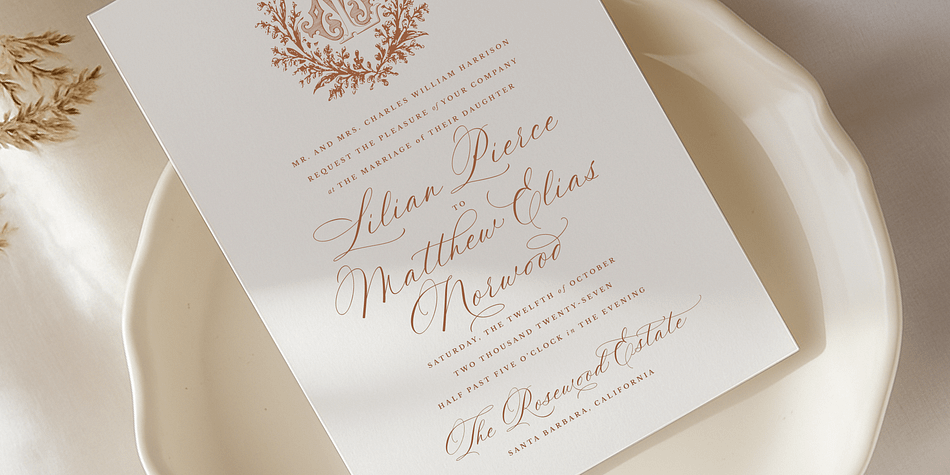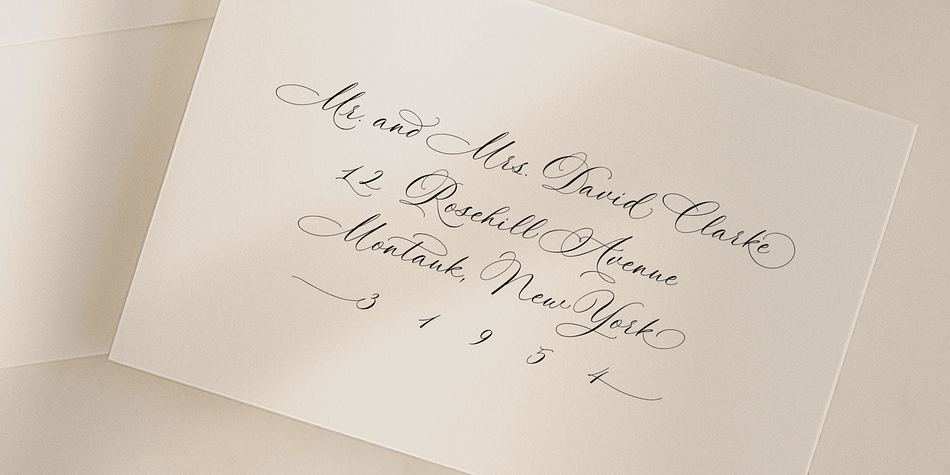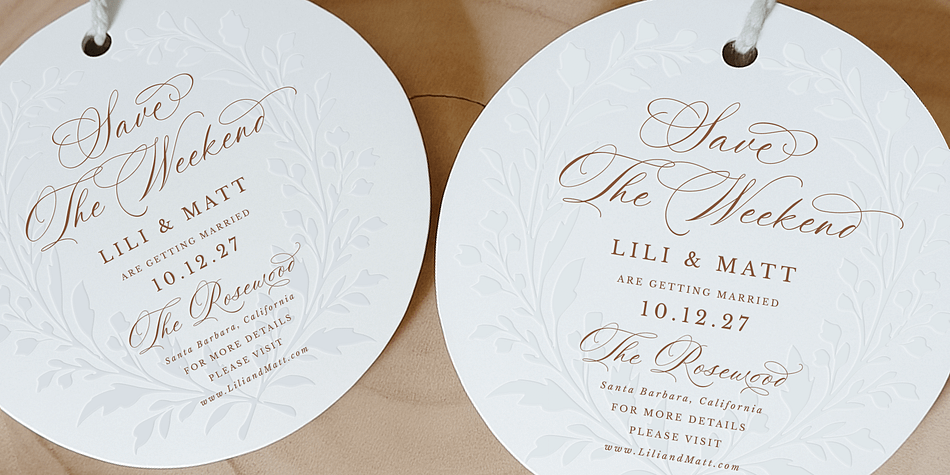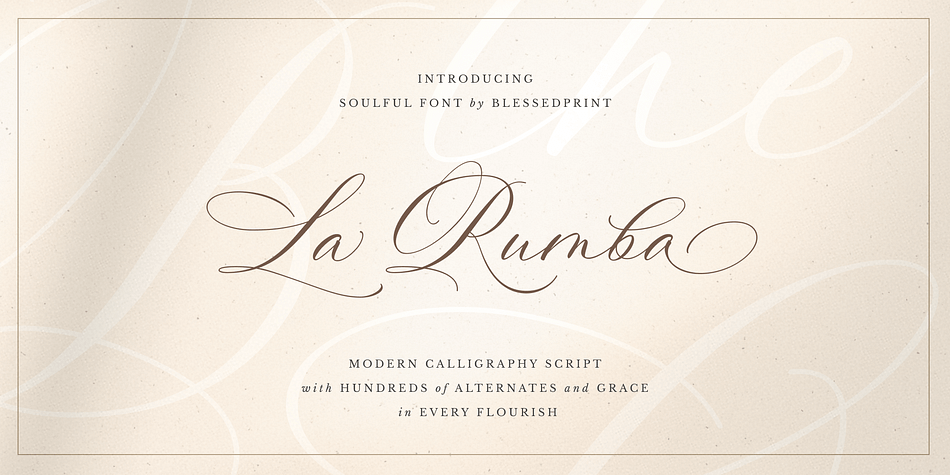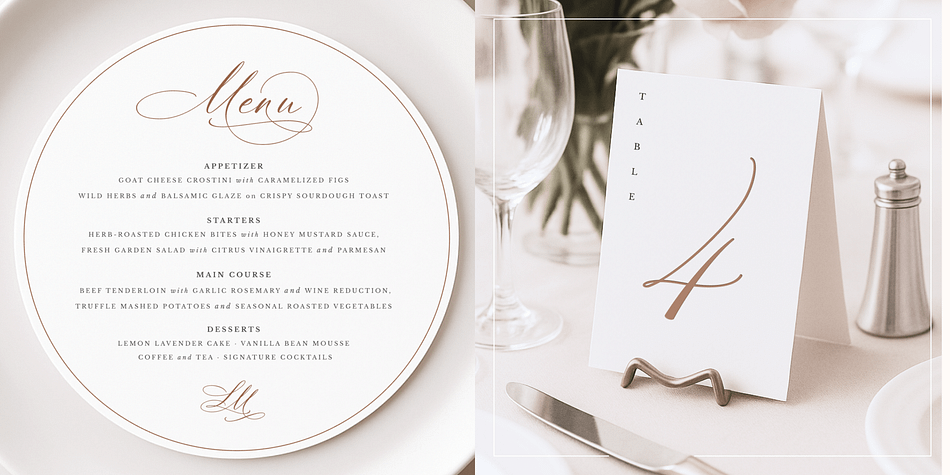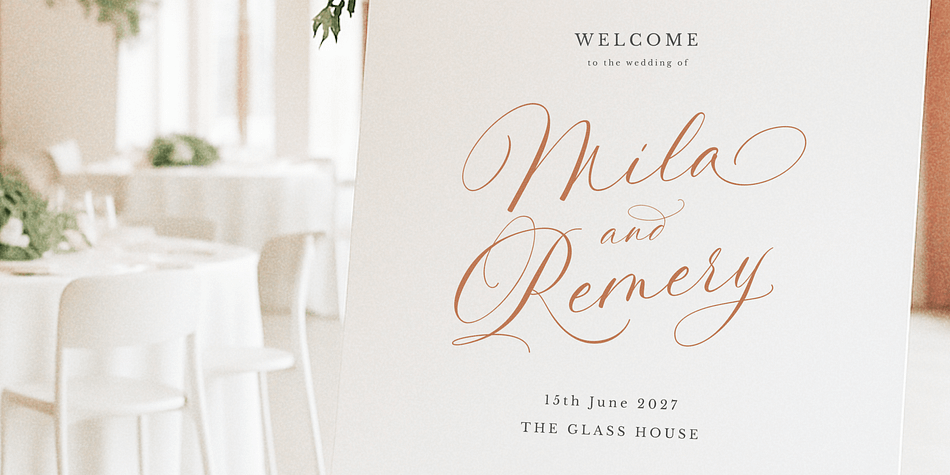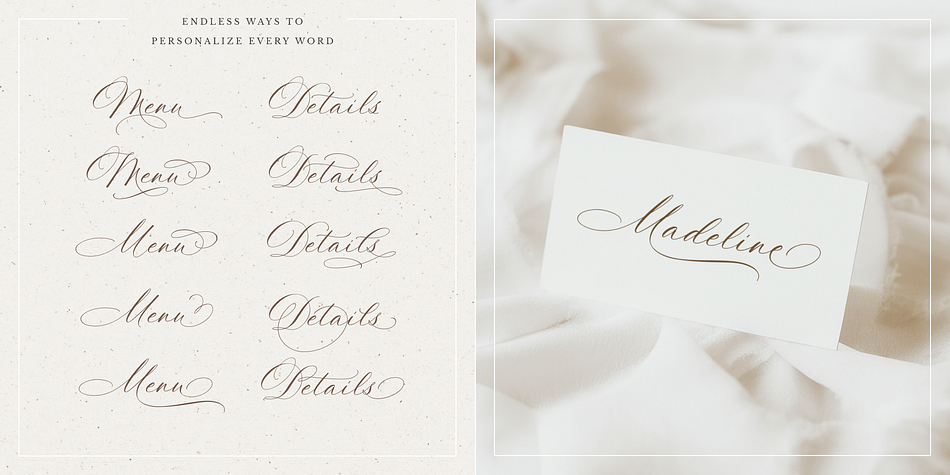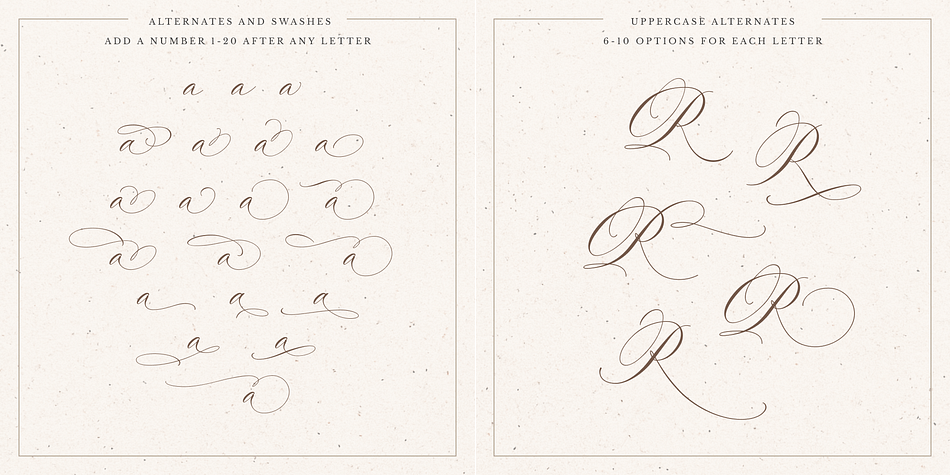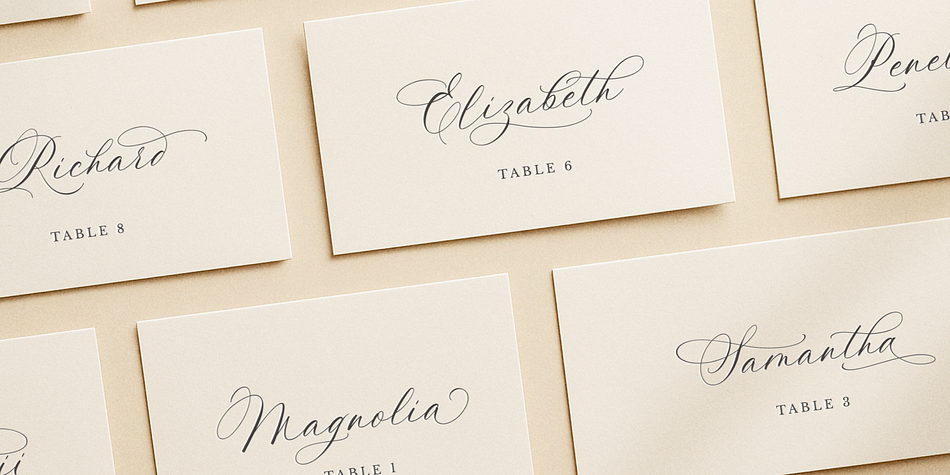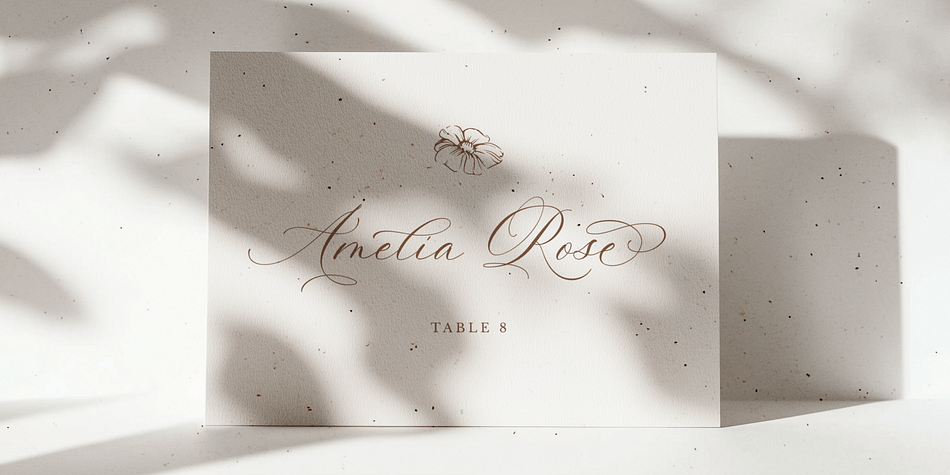
La Rumba
Designed by Dmitrii Mikitenko, La Rumba is a script font family published by Blessed Prints.
La Rumba is a romantic handwritten script with a modern calligraphy touch. It features graceful curves, expressive strokes, and a luxurious, airy feel — perfect for wedding designs, logos, and elegant branding.
The font includes:
- Up to 20 alternates for each lowercase letter
- 6–10 variations for each uppercase
- Roman numerals, swashes, and multilingual support
If you loved Mozart or Juliette, La Rumba will charm you with its refined, customizable style.